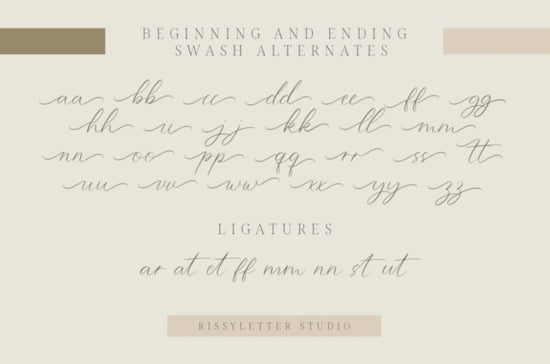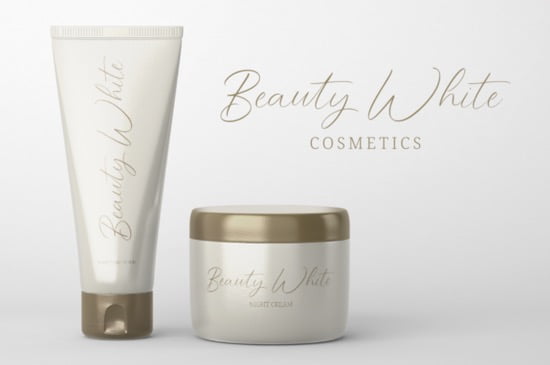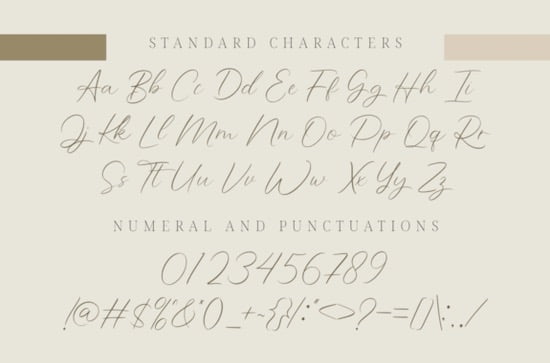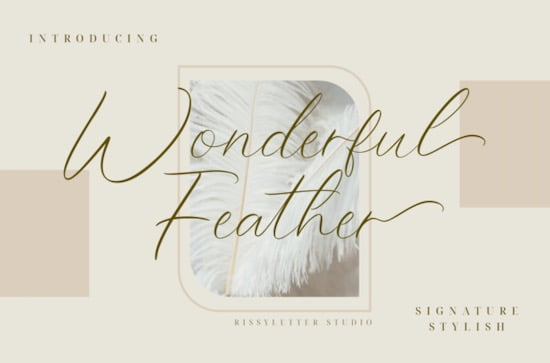
Wonderful Feather Font
Wonderful Feather is a delicate and light handwritten font that was designed and published by Rissyletter Studio. It’s PUA encoded so that you can access easily all of the swashes and glyphs. This script typeface looks well for many projects such as advertisements, product designs, branding projects, wedding designs, photography, invitation, social media posts, logos, label, stationery, product packaging, and more.